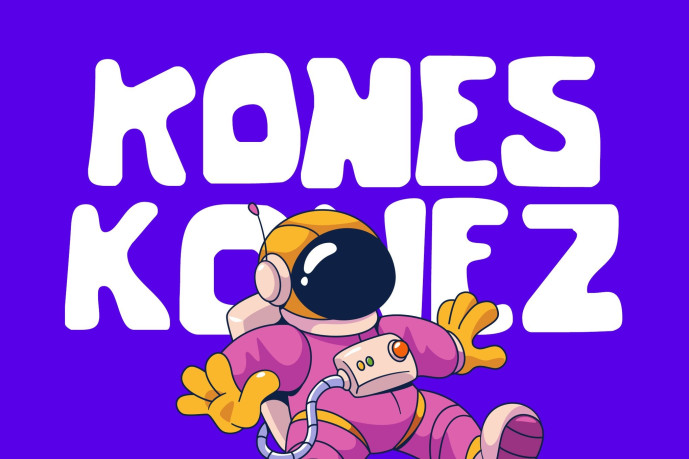
Konez – Playful Font
Konez – Playful Font – This font features ultra-bold, heavy letterforms with a distinctively playful and organic feel. The strokes are thick and uneven, giving it a hand-drawn, bubble aesthetic that lacks traditional geometric precision. The terminals are rounded, and the counters are small, which enhances its chunky, impactful presence. Its irregular outlines create a sense of movement and energy, making it ideal for high-impact display purposes like logo design, event posters, and creative branding projects that require a friendly, approachable, yet bold personality. The overall vibe is cosmic and fun, perfectly complementing the illustrative space theme.